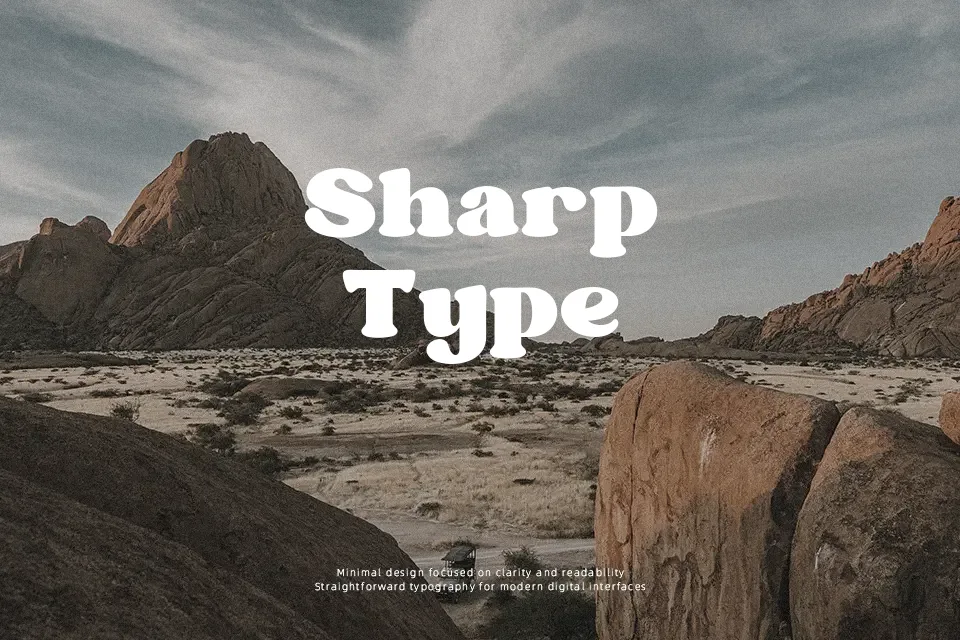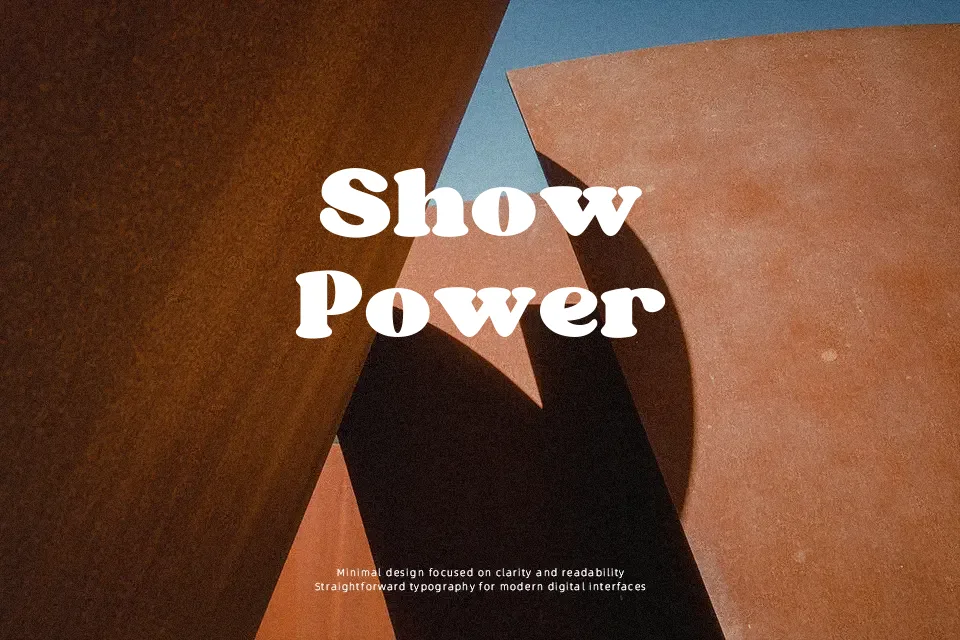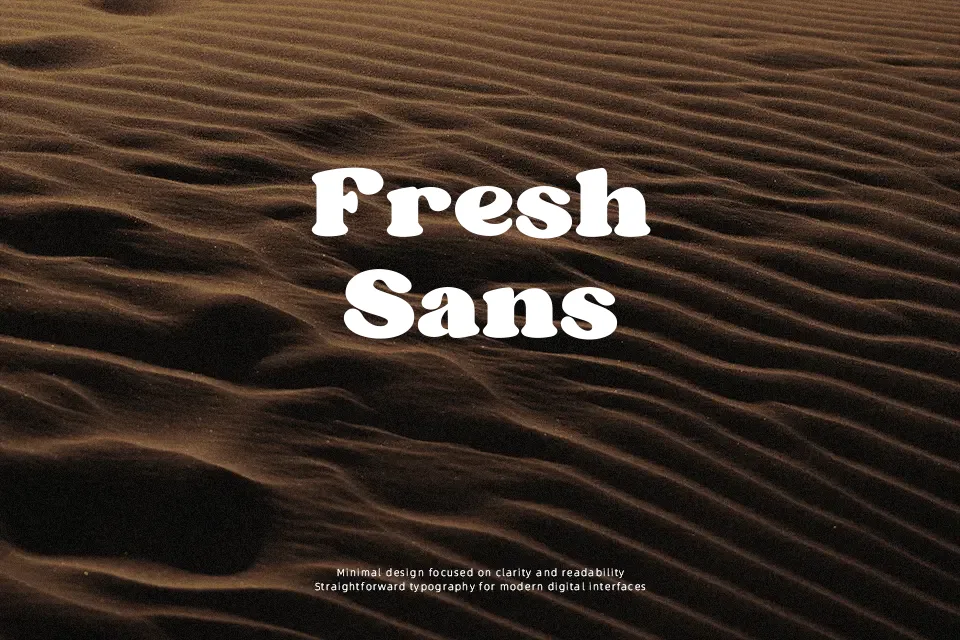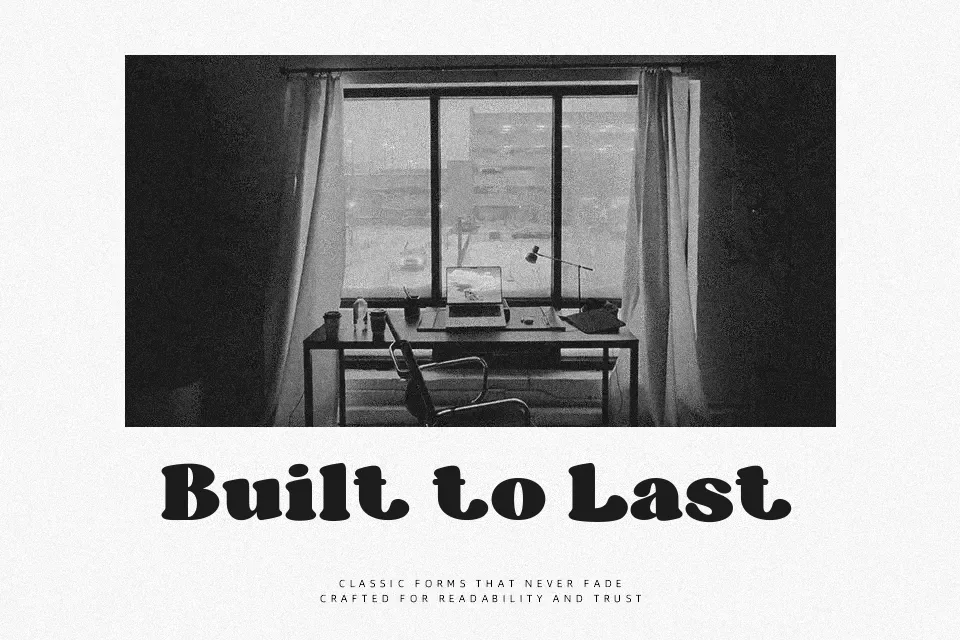
Black Orange Font
Designed by Achmad Yani
Black Orange Font brings a heavy, nostalgic presence, echoing the chunky warmth of classic Cooper Black-style typefaces. Characterized by incredibly thick strokes, expanded letter structures, and softly curved serif terminals, it commands immediate visual attention. The typeface strikes a balance between casual friendliness and decorative weight, offering stylistic alternates that inject personality into typography. It truly excels in large applications such as boutique apparel tags, retro-themed music event flyers, and artisanal food packaging where a bold vintage aesthetic shines. However, due to its massive weight and tight counters, it struggles significantly in small body text or dense editorial layouts, where the thick letterforms quickly lose their legibility.
Vintage-inspired apparel graphics
Artisanal food and beverage packaging
Eye-catching event poster headlines
Small-scale editorial body copy
Corporate financial reports
Minimalist tech startup interfaces
Perfect for branding, headline, and packaging, with a bold and display style.